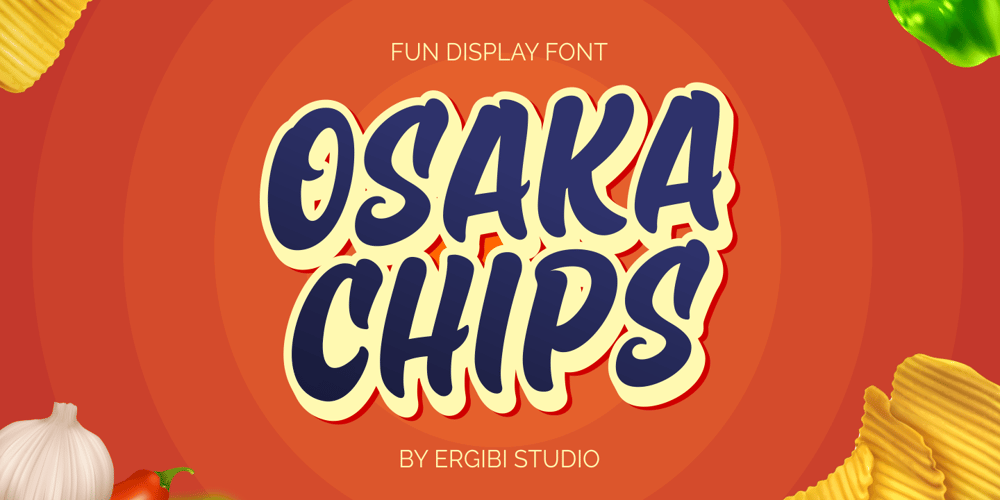
Osaka Chips Font Family was designed by Riyadh Rahman and published by Ergibi Studio. Osaka Chips contains 2 styles and family package options. Osaka Chips is a unique all uppercase characters font equipped with extrude effects that make this font look more attractive and very suitable for a variety of funny needs such as chips packaging, snack and food packaging, quotes, needs of school children, and more.